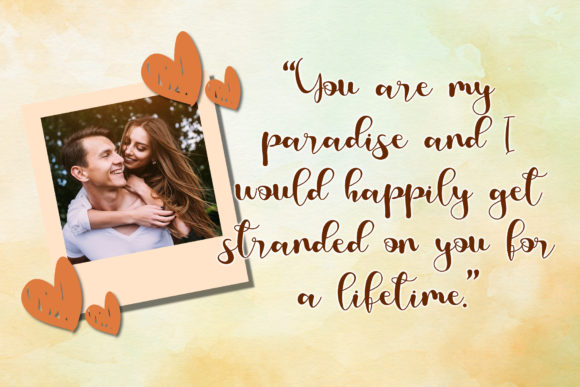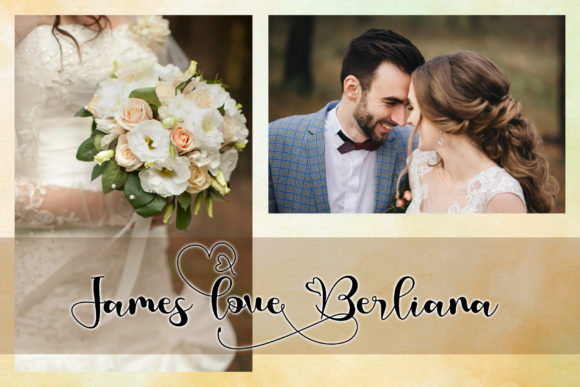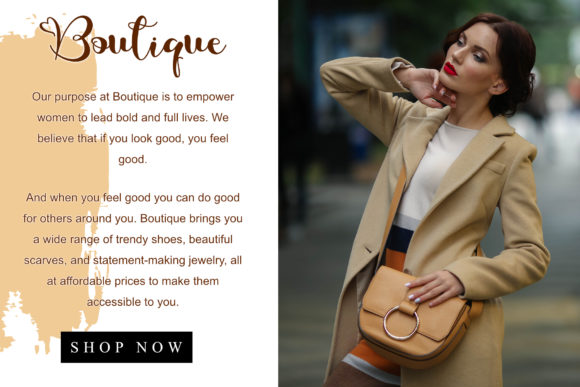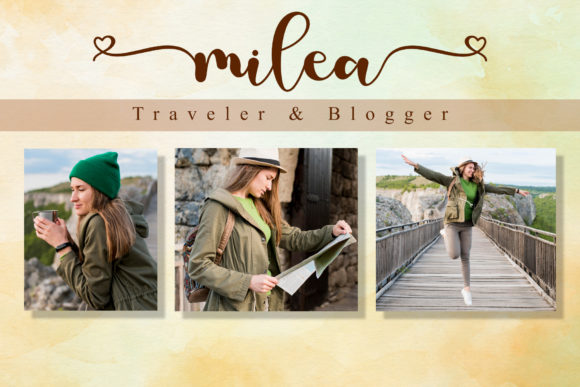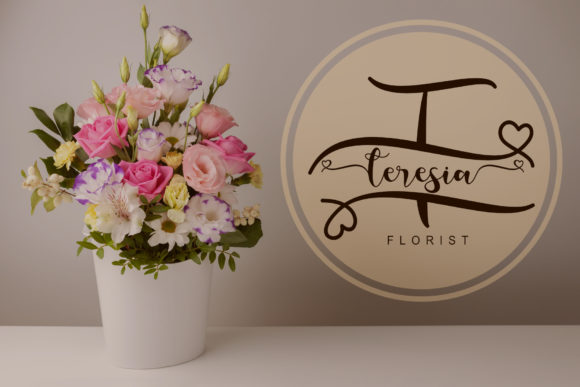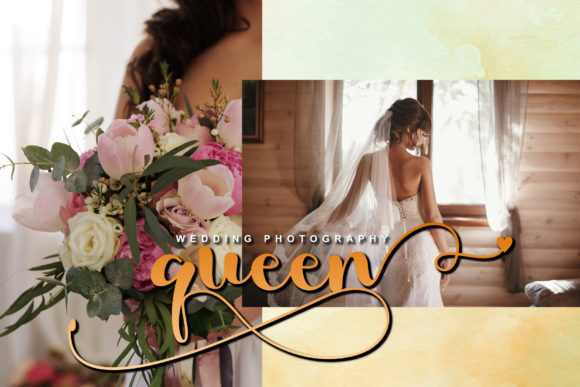
Introduction to Love Valentina Font
Love Valentina is a romantic and sweet calligraphy typeface with characters that dance along the baseline.
It can be used for various purposes such as logos, wedding invitations, headings, t-shirts, letterhead, signage, labels, news, posters, badges and so much more This font is PUA encoded which means you can access all of the glyphs and swashes with ease.
Key Features of Love Valentina Font
Why Choose Love Valentina Font?
Love Valentina Font offers exceptional quality and versatility, making it a valuable addition to your design toolkit. Whether you’re creating for personal projects or commercial use, Love Valentina Font delivers professional results.